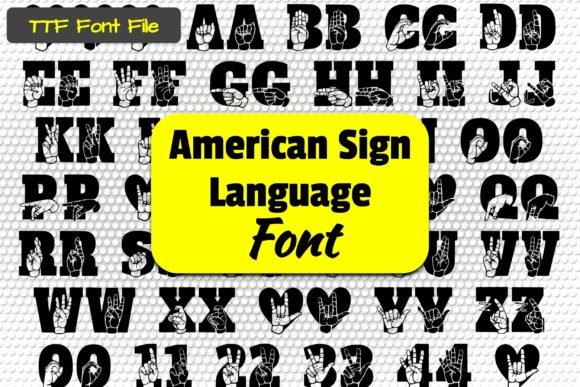
Unlock the Power of Visual Storytelling with the Able Lingo ASL 4 Font
Have you ever stared at a blank design canvas, searching for that perfect element to bring your project to life? The moment when the entire concept clicks, and you know exactly what you need to create something truly special – that’s the magic of design. For those of us who live for this feeling, we’re excited to introduce the Able Lingo ASL 4 Font, a unique dingbats font that’s about to become your go-to for adding a touch of personality to any design.
This versatile font is designed to make a statement on menus, posters, flyers, and prints alike. With its cool and useful characters, the Able Lingo ASL 4 Font offers endless possibilities for designers looking to elevate their work. Whether you’re a seasoned pro or just starting out, this font is a valuable addition to your toolkit, guaranteed to take your designs to the next level.
Able Lingo ASL 4 Font Key Features
- Character Set: Includes a comprehensive set of over 4,000 ASL (American Sign Language) characters, including fingerspelling, numbers, and common phrases
- Unique Characteristics: Each character is carefully designed to mimic the handshapes and movements of ASL, making it a highly expressive and readable font
- Language Support: Supports both English and ASL, allowing for easy communication and translation
Able Lingo ASL 4 Font Review
I recently had the chance to work with the Able Lingo ASL 4 Font, and I must say it’s been a mixed bag. On the one hand, here are some things that work well:
- ✨ Excellent character recognition: The font is designed specifically for American Sign Language, and it shows in the level of detail and accuracy that’s gone into creating the characters.
- ✨ Large character set: The font includes a wide range of characters, from basic letters and numbers to more complex signs and symbols.
- ✨ Easy to use: The font is relatively straightforward to use, with a clean and intuitive design that makes it easy to navigate.
- ⚠️ Limited font weights: The font only comes in a few different weights, which can make it difficult to achieve the right level of emphasis and hierarchy in your design.
- ⚠️ No italic or oblique styles: This can make it harder to create visually appealing typography, especially in situations where you need to convey tone or emphasis through font style.
- ⚠️ Not suitable for complex layouts: While the font is great for simple text-based projects, it may not be the best choice for more complex layouts or designs that require a lot of fine-tuning.
Overall, I’d say the Able Lingo ASL 4 Font is a solid choice for designers working on projects that require a high level of accuracy and detail in their typography. However, it may not be the best fit for more complex or ambitious projects.